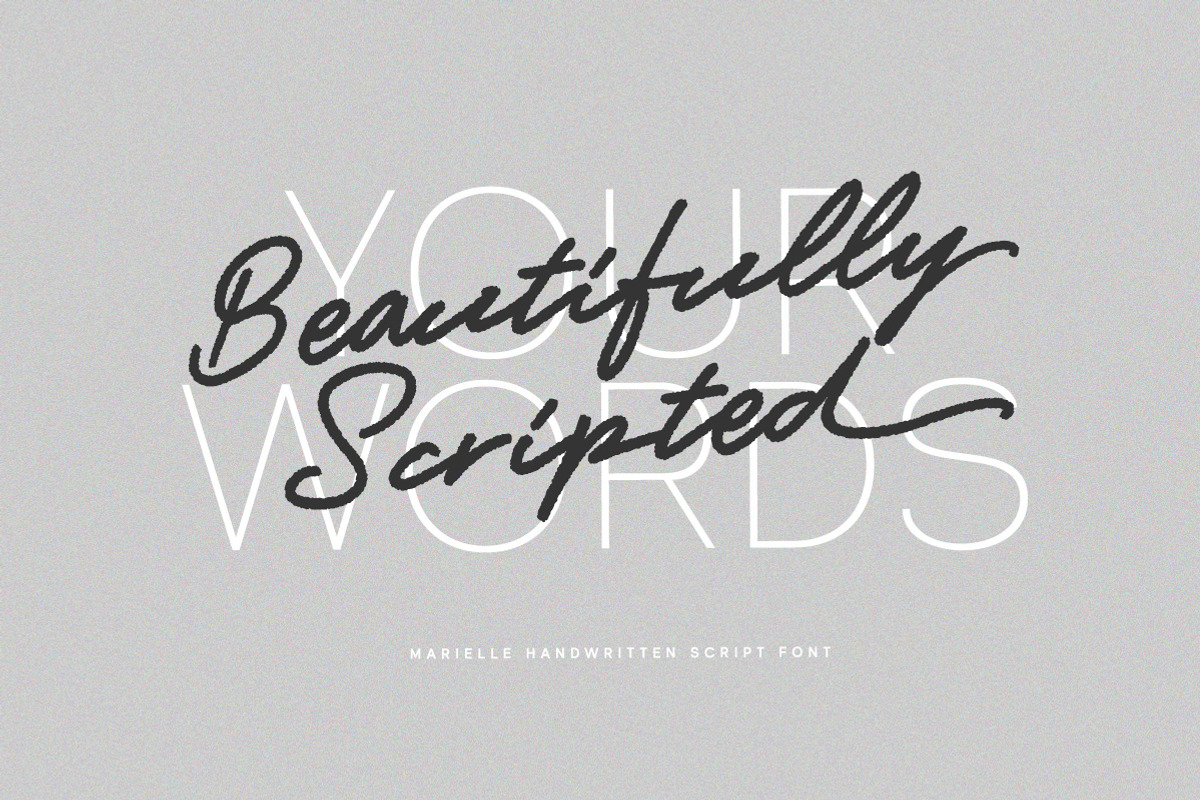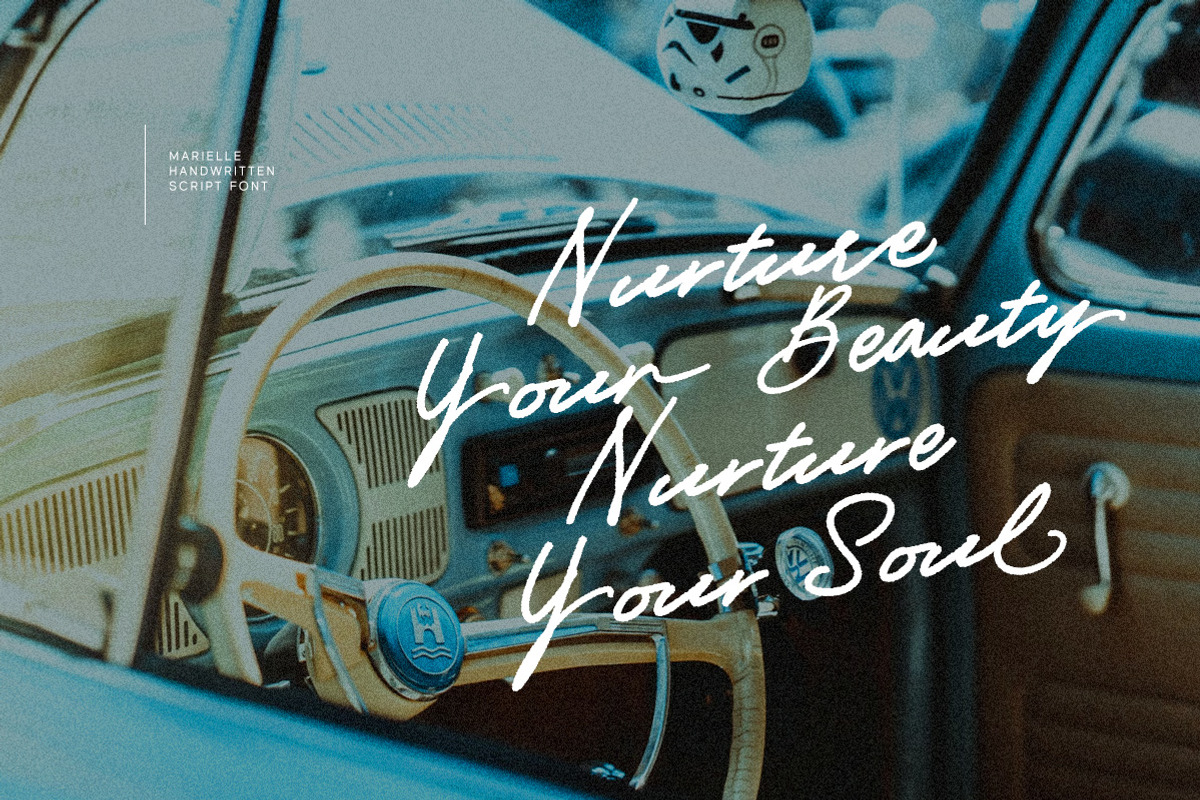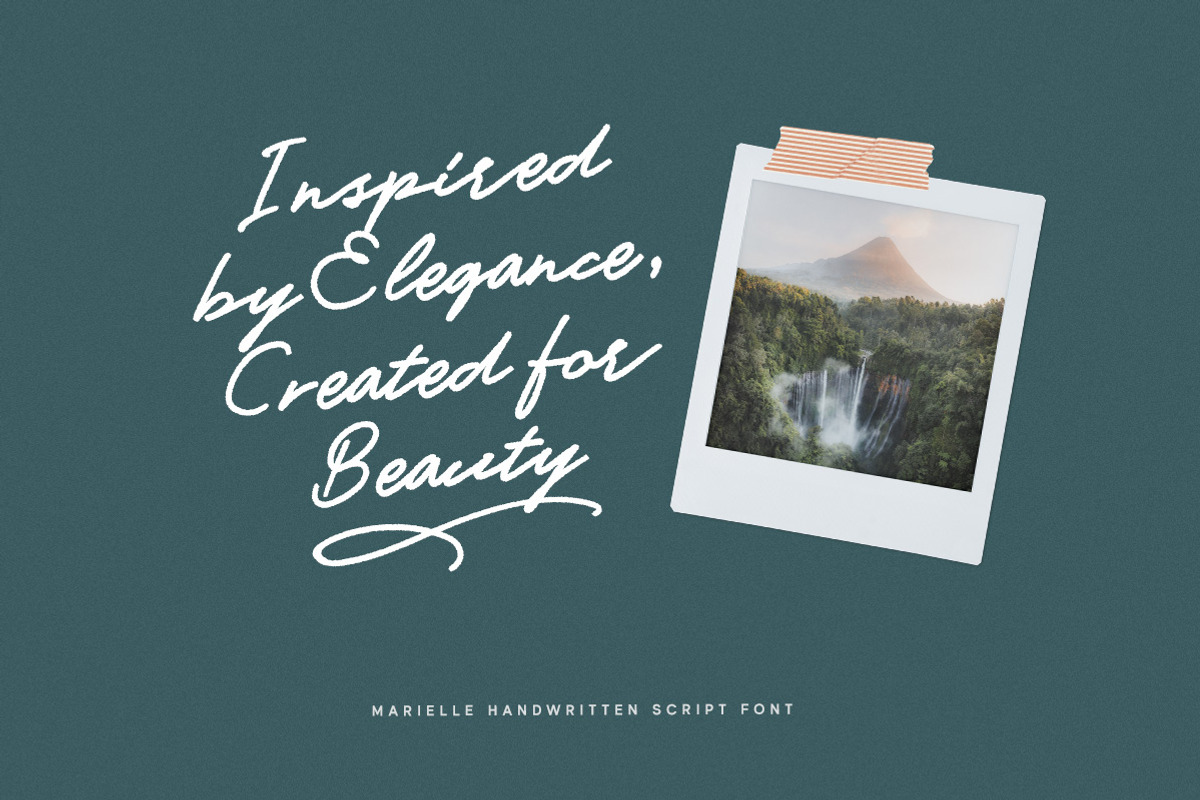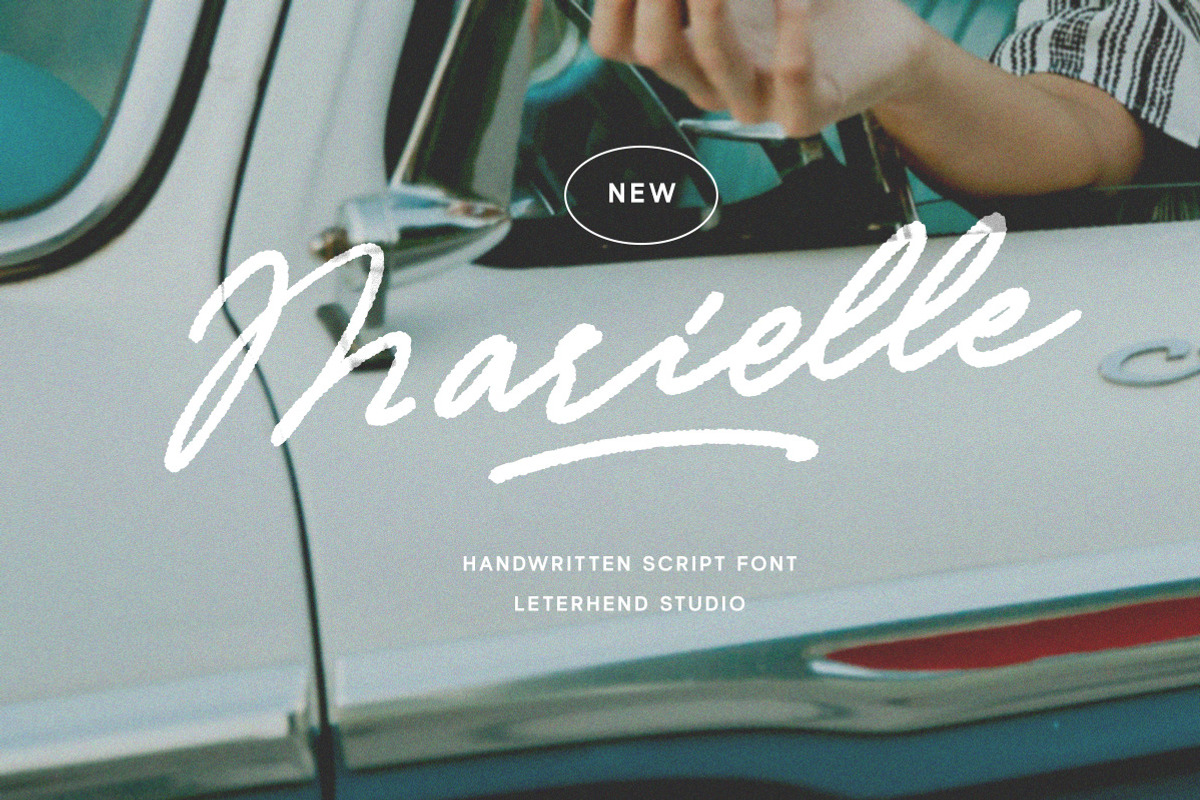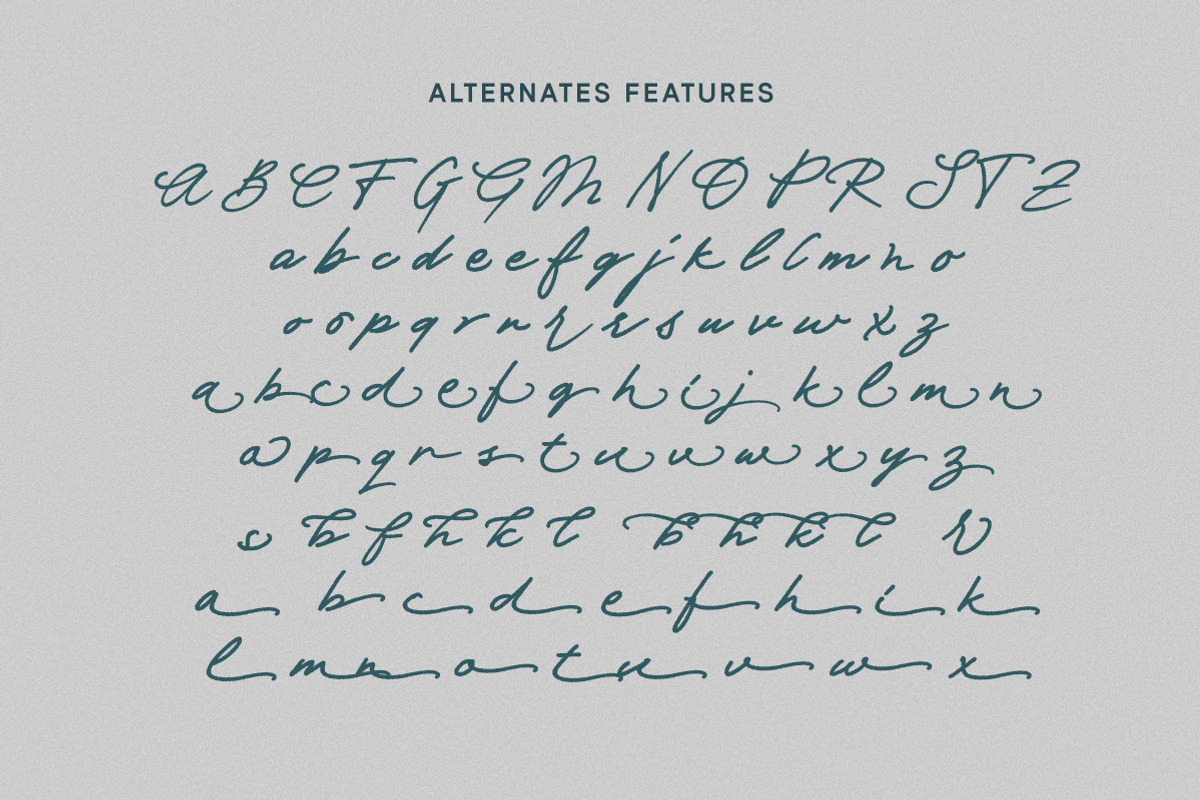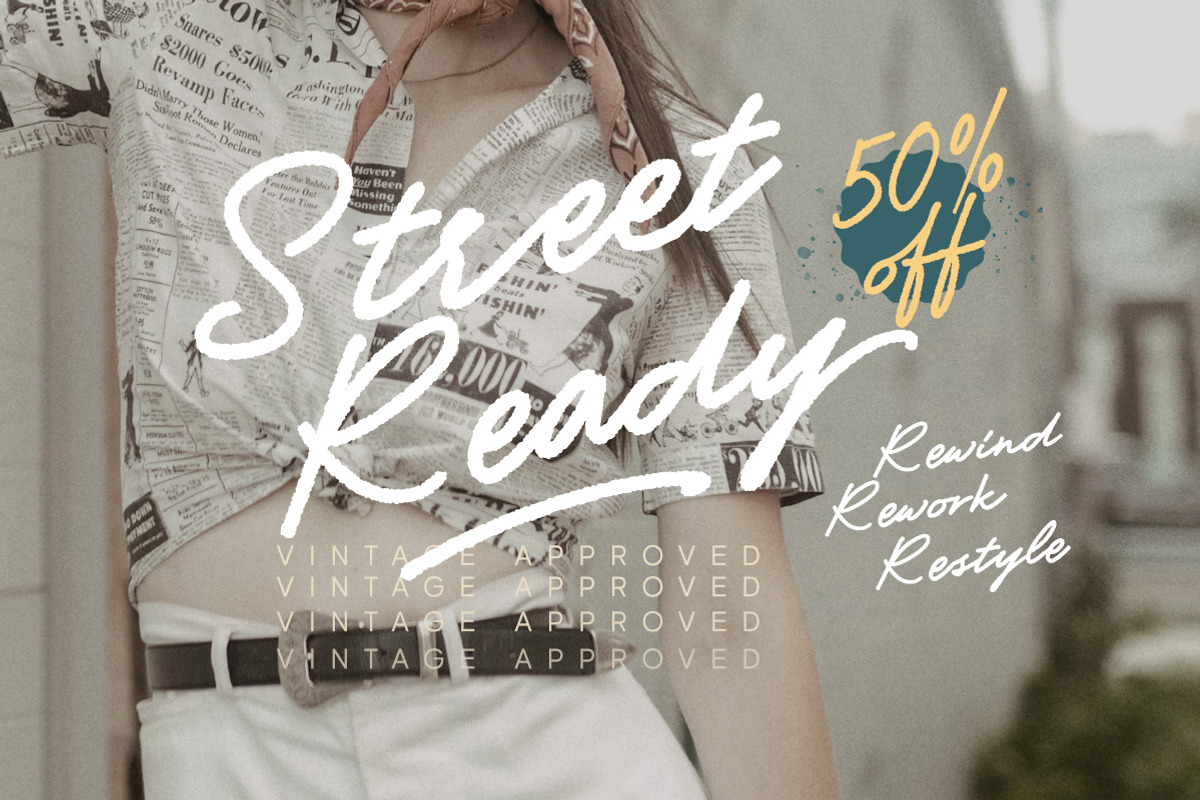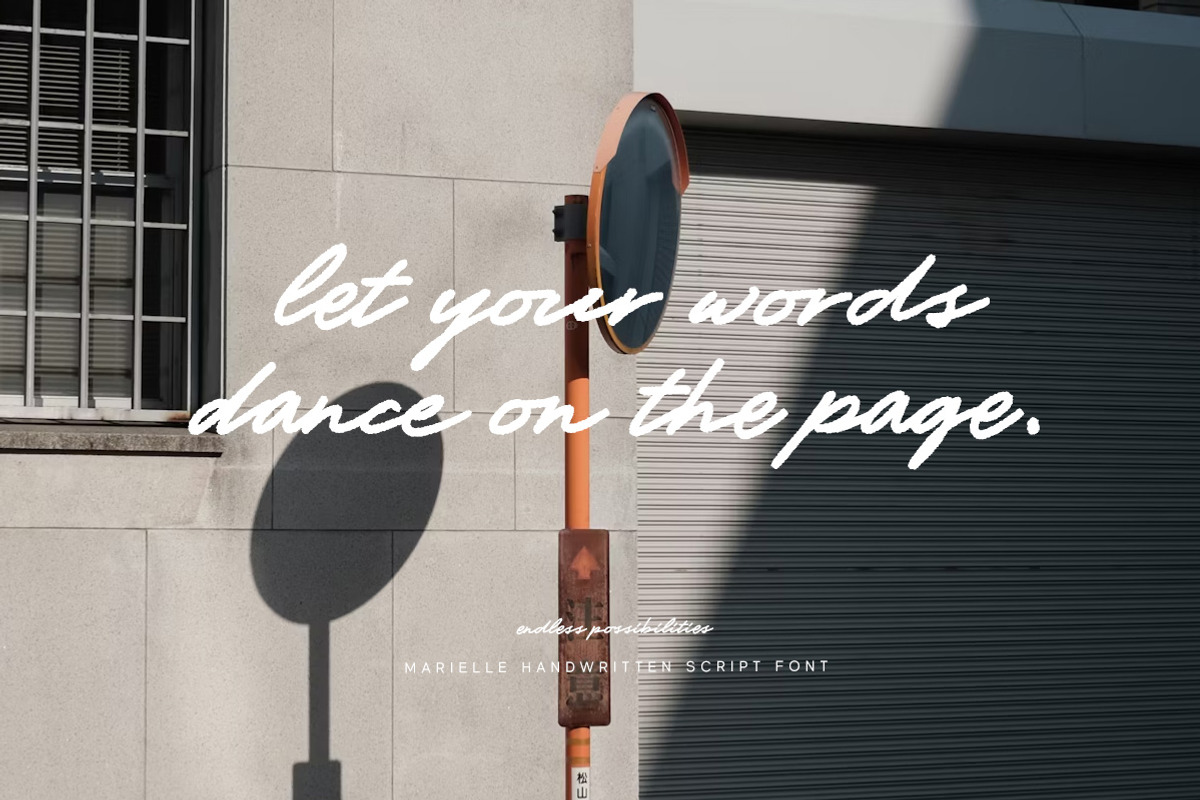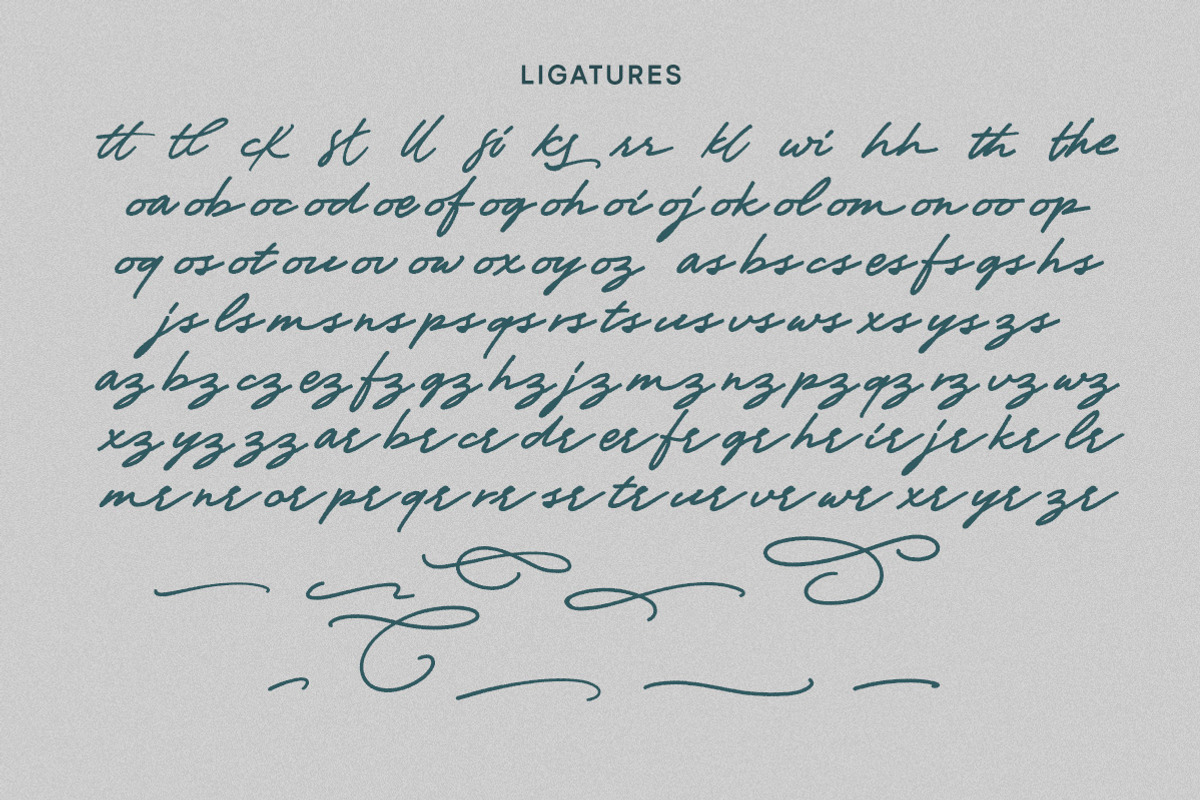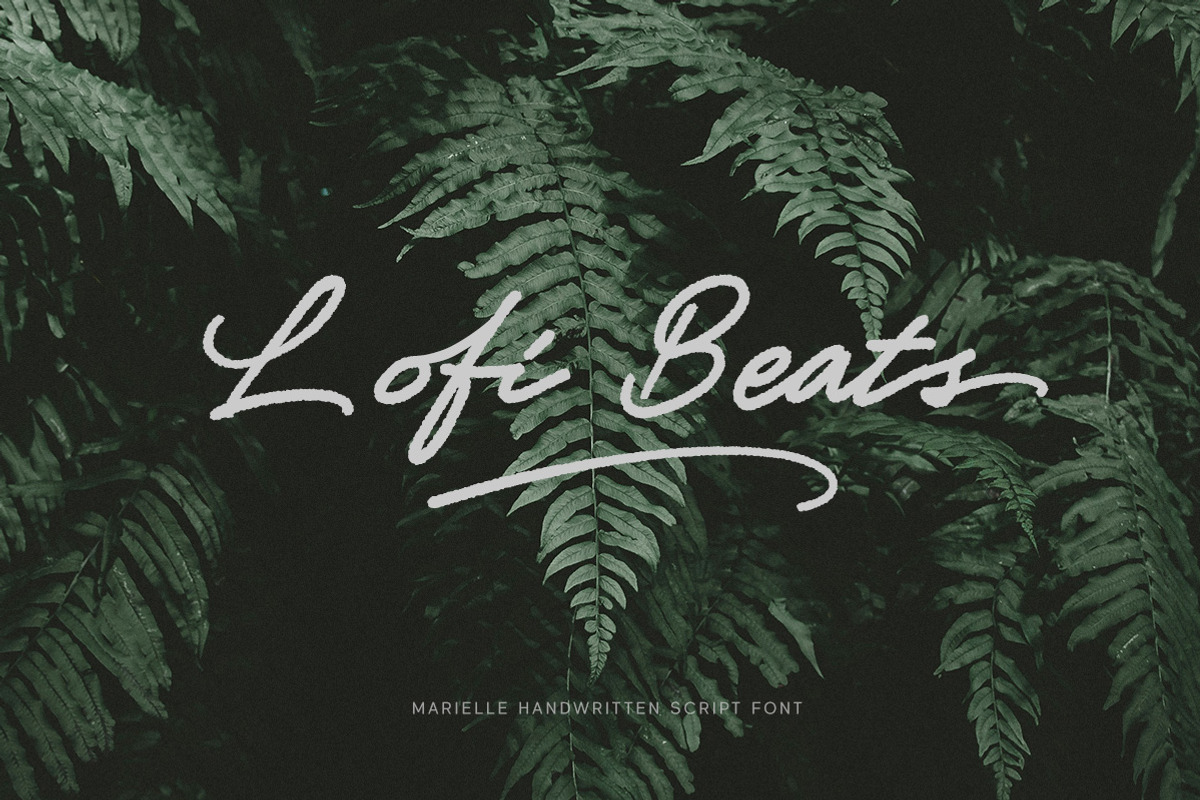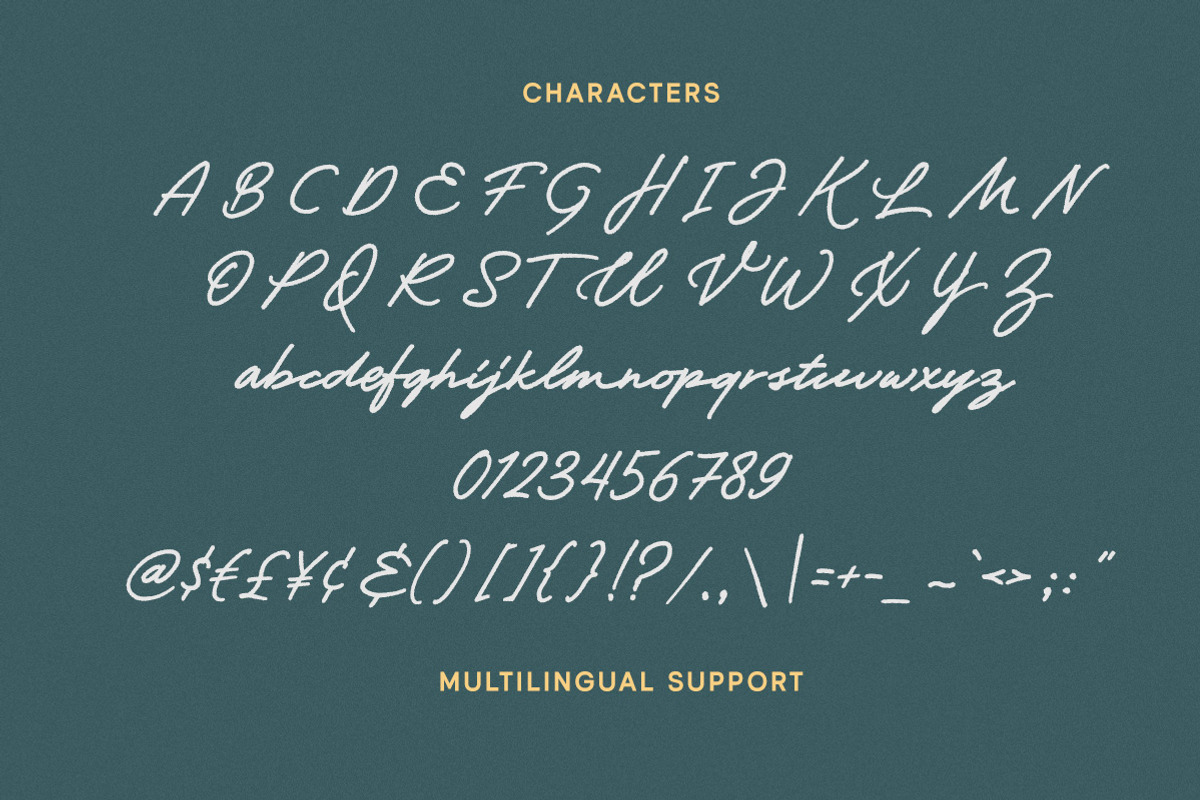
Marielle Brush Script
Marielle is a graceful handwritten script with a natural brush style, designed to bring a personal touch to your projects. Its fluid strokes make it perfect for logos, invitations, labels, magazines, books, greeting and wedding cards, as well as packaging, fashion, and stationery. Whether you're working on formal documents or creative branding, Marielle adds a sophisticated and stylish flair.